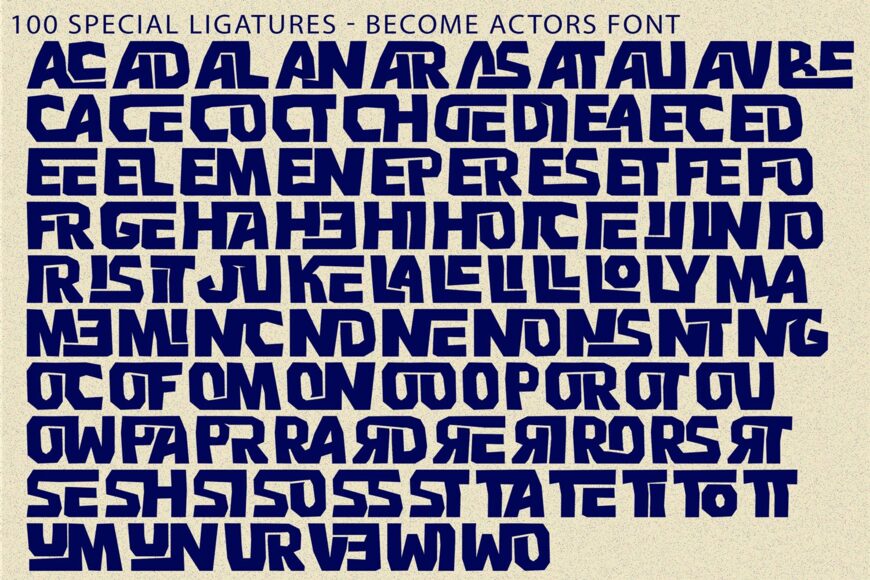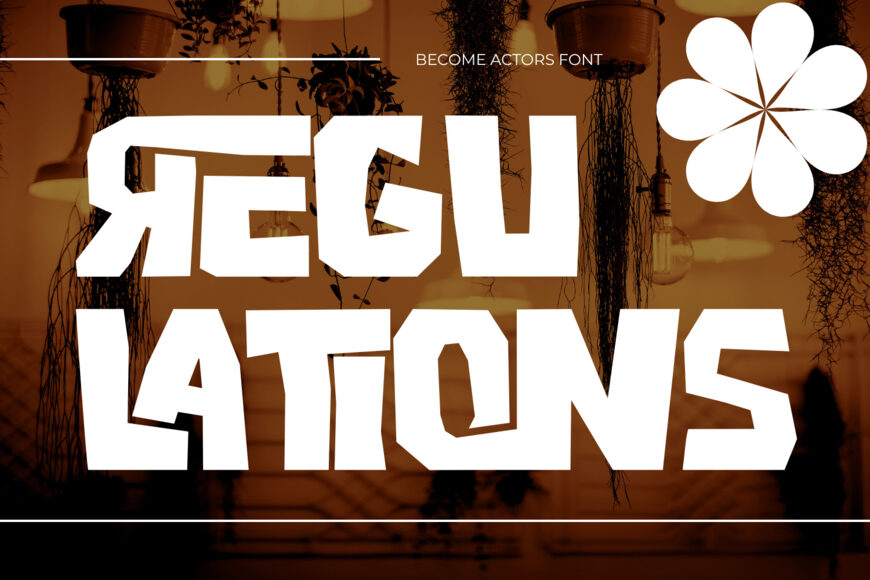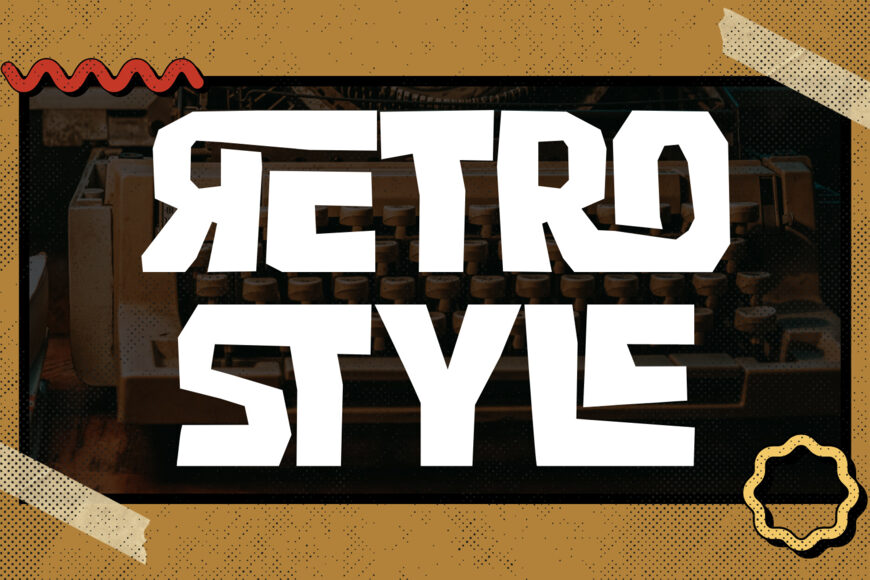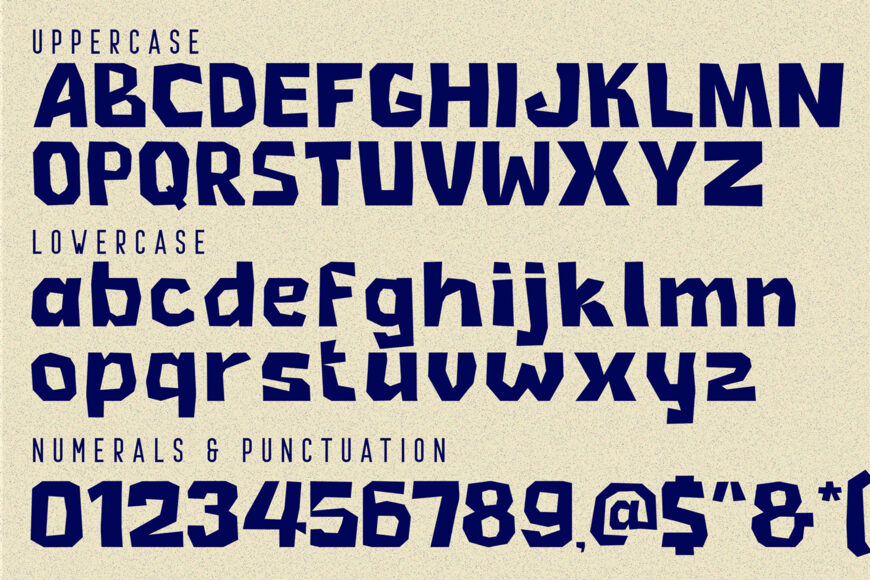
Become Actors Font
Become Actors is a high-impact display font engineered with heavy blocky proportions and sharp, faceted angular cutouts. Replacing conventional smooth curves with straight-edge geometric slices, this typeface captures the tactile energy of low-poly 3D artwork, hand-cut papercraft, and playful comic book titles.
Built with ultra-thick stems and distinct geometric inner counters, Become Actors delivers an unstoppable visual presence that commands immediate focus. It is the ultimate choice for game graphics, cartoon titles, comic book covers, children’s book layouts, playful food packaging, YouTube thumbnails, and edgy streetwear branding. Add a fun, handcrafted, and solid punch to your designs with Become Actors.